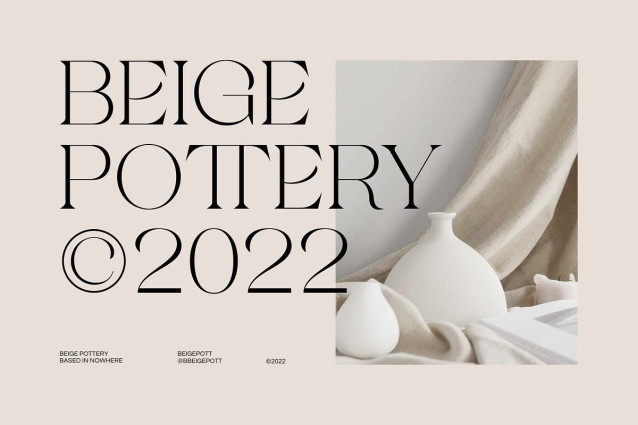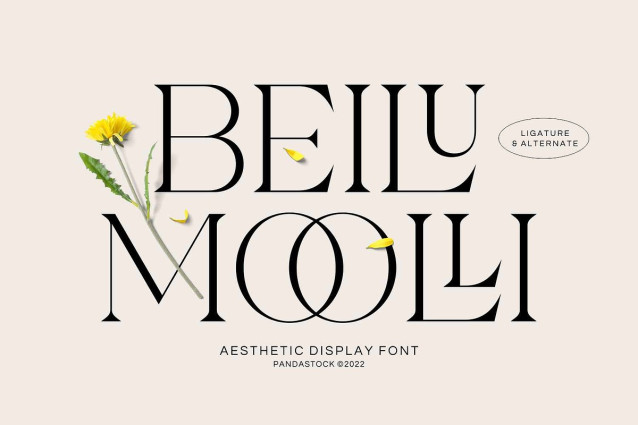
Beilu Moolli Font
Beilu Moolli Font is a aesthetic display font, high contrast display serif that blends neoclassical structure with modern flair. Use it for fashion and beauty branding, magazine covers, packaging, posters, invitations, and any project that wants a luxe, contemporary voice.